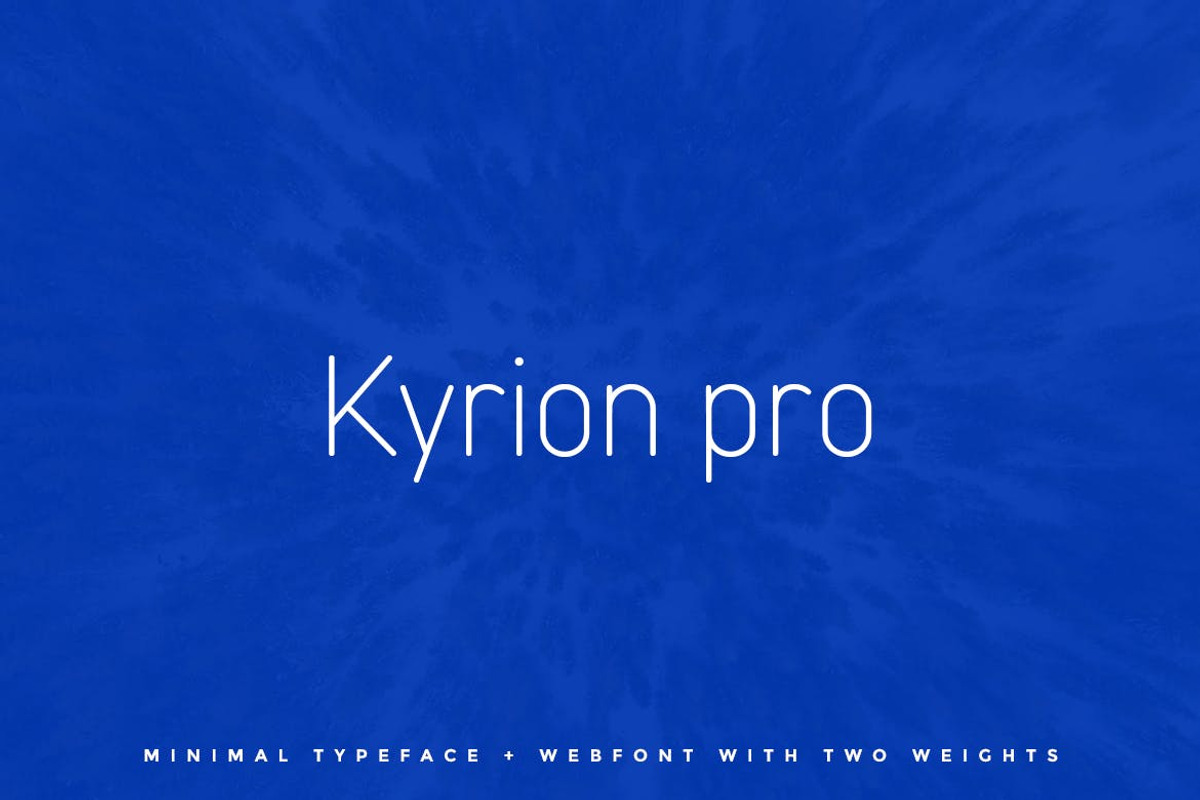
Kyrion Pro Typeface + Web Fonts
Kyrion Pro Sans Typeface
Kyrion Pro is a modern and Minimal Sans Serif typeface with Two Weights, Kyrion Pro can keep the minimalism at its level best and is a perfect choice for, Display, headlines, paragraph, subheading, notes, Big Banners. Classic & Decorative Typography Designs.
2weights
- bold
- regular
Font Designed and Crafted by Amanda Rodriguez, Distributed by Webhance Studio.